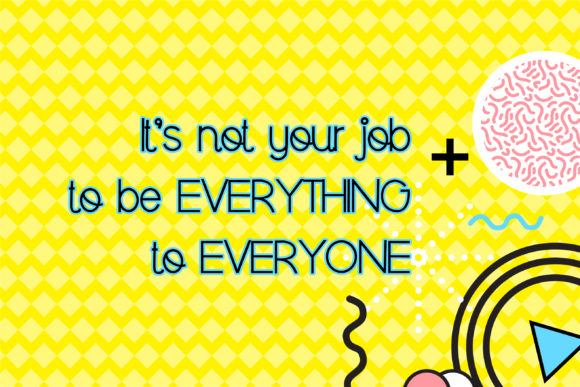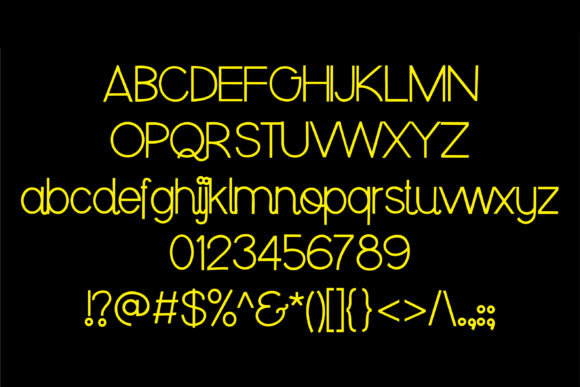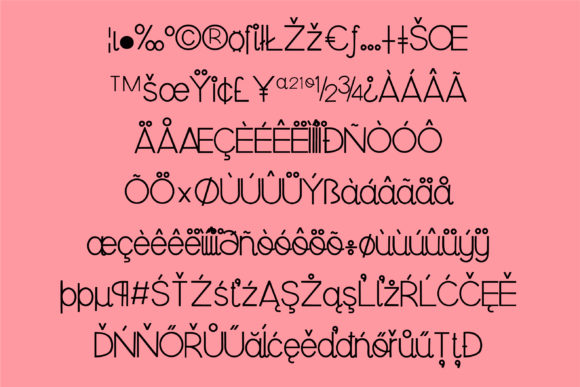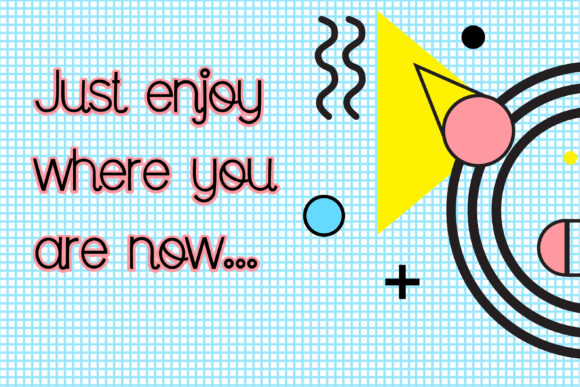
The Clifford Font: A San-Serif Delight with a Playful Twist
As designers, we’ve all been there – stuck in a creative rut, searching for the perfect font to bring our project to life. I recall a particularly frustrating moment when I was working on a whimsical craft project, and my chosen font just wasn’t cutting it. That’s when I stumbled upon the Clifford Font, a san-serif, quasi-script font with adorable hooked tails that instantly captured my heart. In this article, I’ll share my experience with Clifford, its features, and how to make the most of it in various design platforms.
A Personal Review: What I Love and What to Watch Out For
- Unique, playful design with hooked tails that add a touch of whimsy to any project ✅
- Excellent for crafty, DIY, or children’s projects, where a friendly font is essential 🌟
- Works well in both digital and print formats, making it versatile for various applications 📊
- OpenType features, including stylistic alternates and glyphs, offer flexibility and creative freedom 🎨
Small Quirks and Limitations 🤔
- May not be the best fit for formal or professional projects, as its playful nature might detract from the message ⚠️
- Some users might find the font’s quirks, such as the irregular tail lengths, a bit distracting at first ⚠️
Meet Cliffhanger: Clifford’s Serif Sister
If you love Clifford but want to explore serif options, Cliffhanger is its sister font. While Clifford is playful and whimsical, Cliffhanger offers a more refined, elegant feel. Use Cliffhanger for projects that require a sophisticated touch, such as editorials, magazines, or high-end branding.
The Story Behind Clifford
Clifford’s design story began with a creative brainstorming session between two friends and typography enthusiasts. They aimed to create a font that would bring a smile to users’ faces while still being versatile enough for various projects. Inspired by the playfulness of handwritten fonts and the cleanliness of san-serif fonts, Clifford was born – a unique blend of whimsy and sophistication.